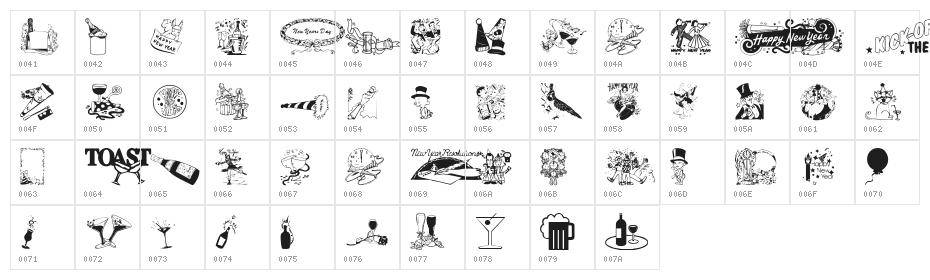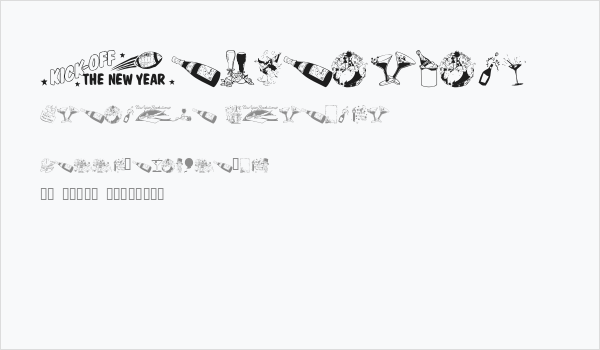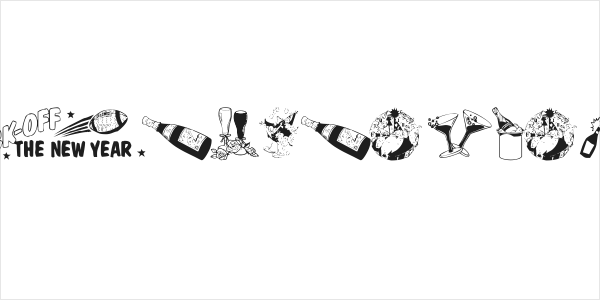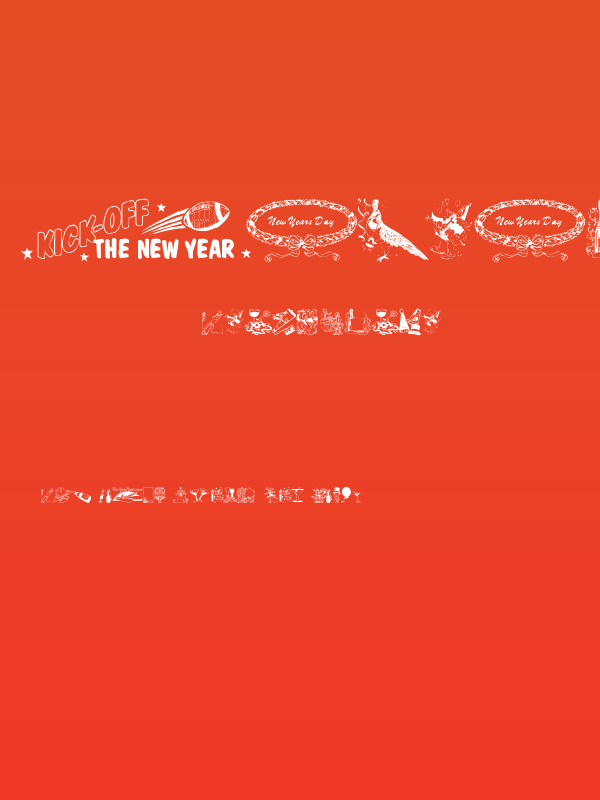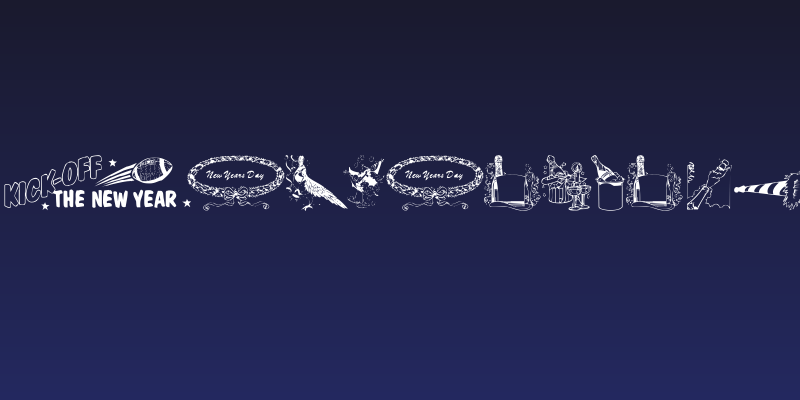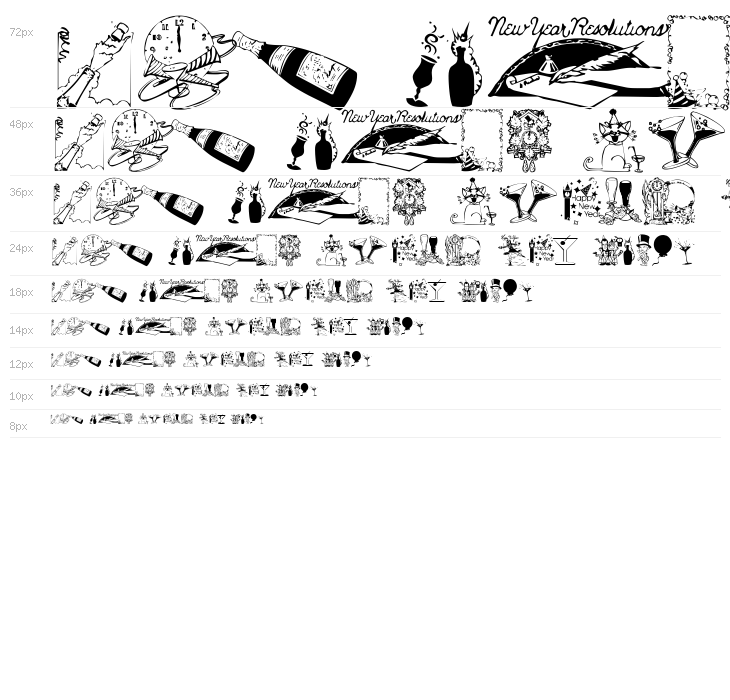
NewYearBats Font
NewYearBats Description
A decorative dingbat font featuring a variety of New Year's themed illustrations, including party hats, champagne glasses, clocks, confetti, celebratory banners, and festive drinks. Each character is represented by a unique celebratory icon or scene, making it suitable for event-related designs.
| Overall Style | Decorative, Festive |
| Use Case | Decorative elements, Themed graphics, Event materials |
| Proposed Projects | Party invitations, event flyers, greeting cards, festive banners, scrapbooking, and digital decorations. |